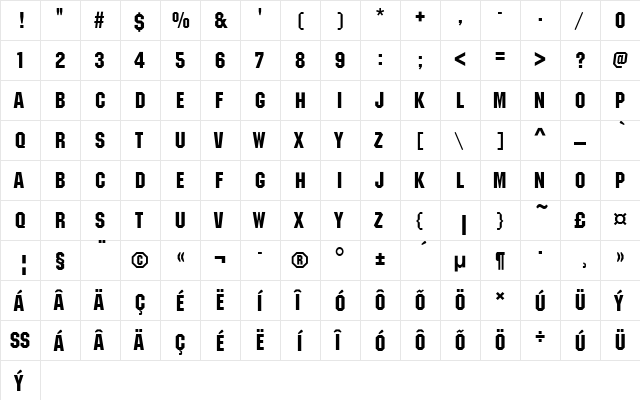
Machine Itc D EE Regular
Design Context for Machine Itc D EE Typeface
Machine Itc D EE takes a measured approach to typography — its balanced proportions and neutral character make it a reliable workhorse for both digital and print work.